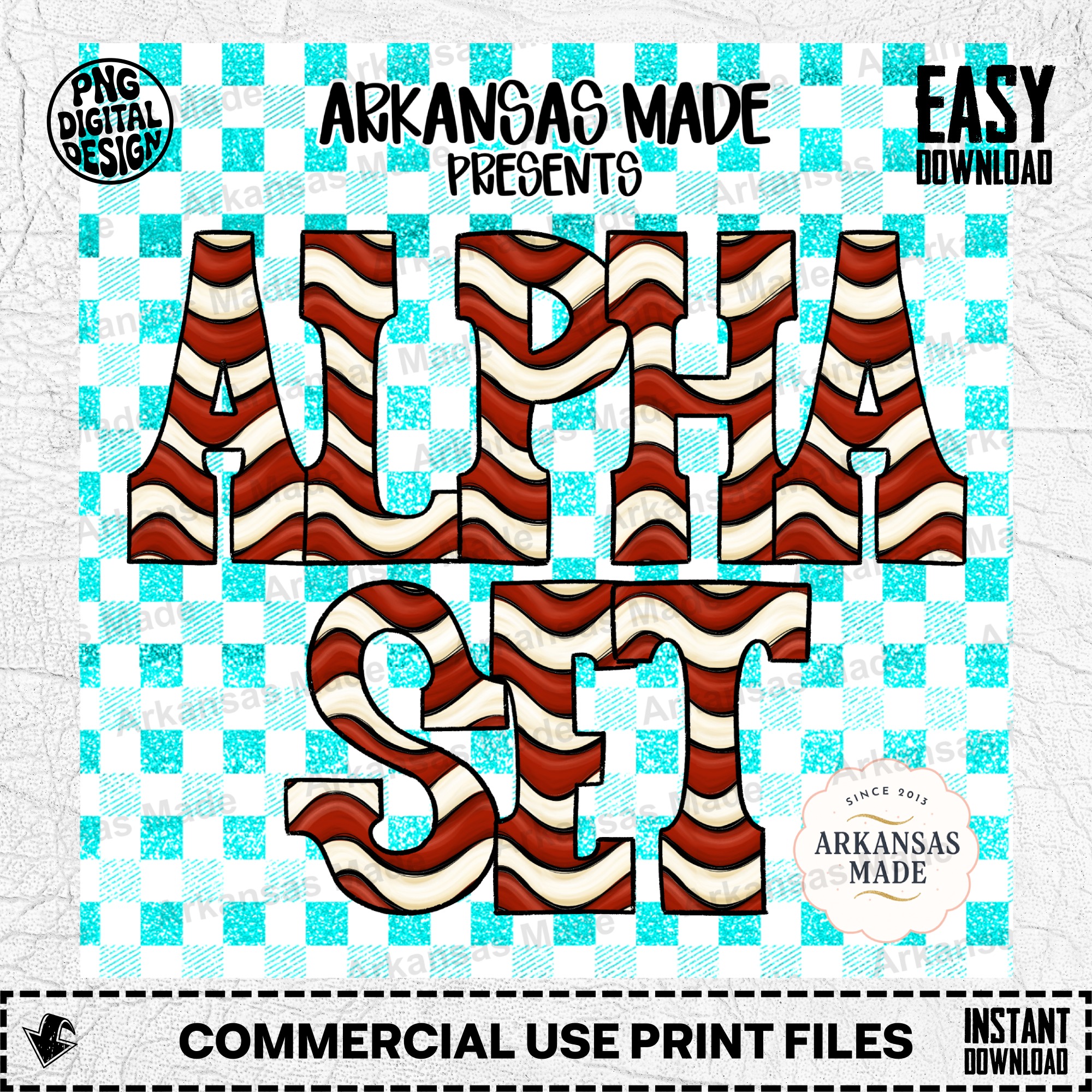
Unwrap creativity with our Red Cream Candy Stripe Alpha Set PNG, perfect for festive holiday designs and personalized crafting projects. This vibrant wavy striped alphabet brings a sweet, whimsical touch to all your digital creations. Infuse a cheerful, candy-inspired aesthetic into your sublimation prints, digital art, or custom merchandise. Ideal for crafters, small business owners, and DIY enthusiasts looking to create unique gifts, apparel, or seasonal decorations. Perfect for adding a personalized flourish to Christmas cards, party invitations, or educational materials.